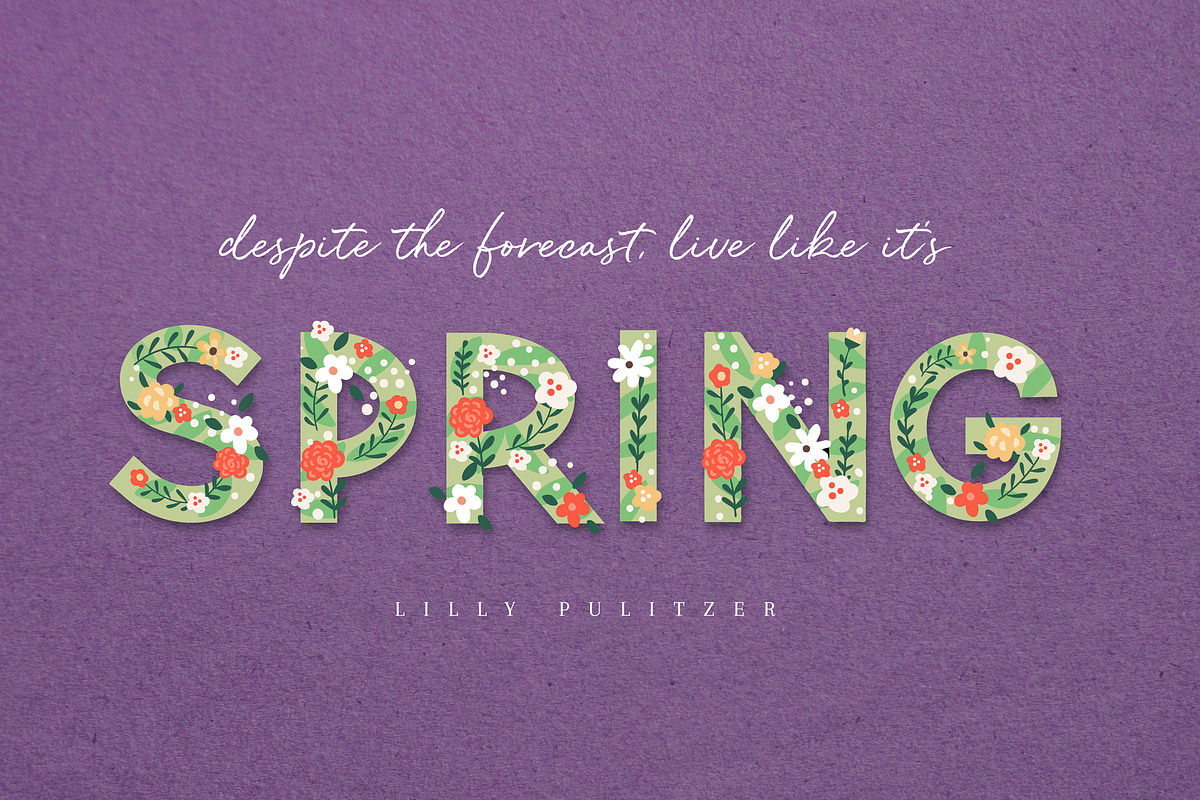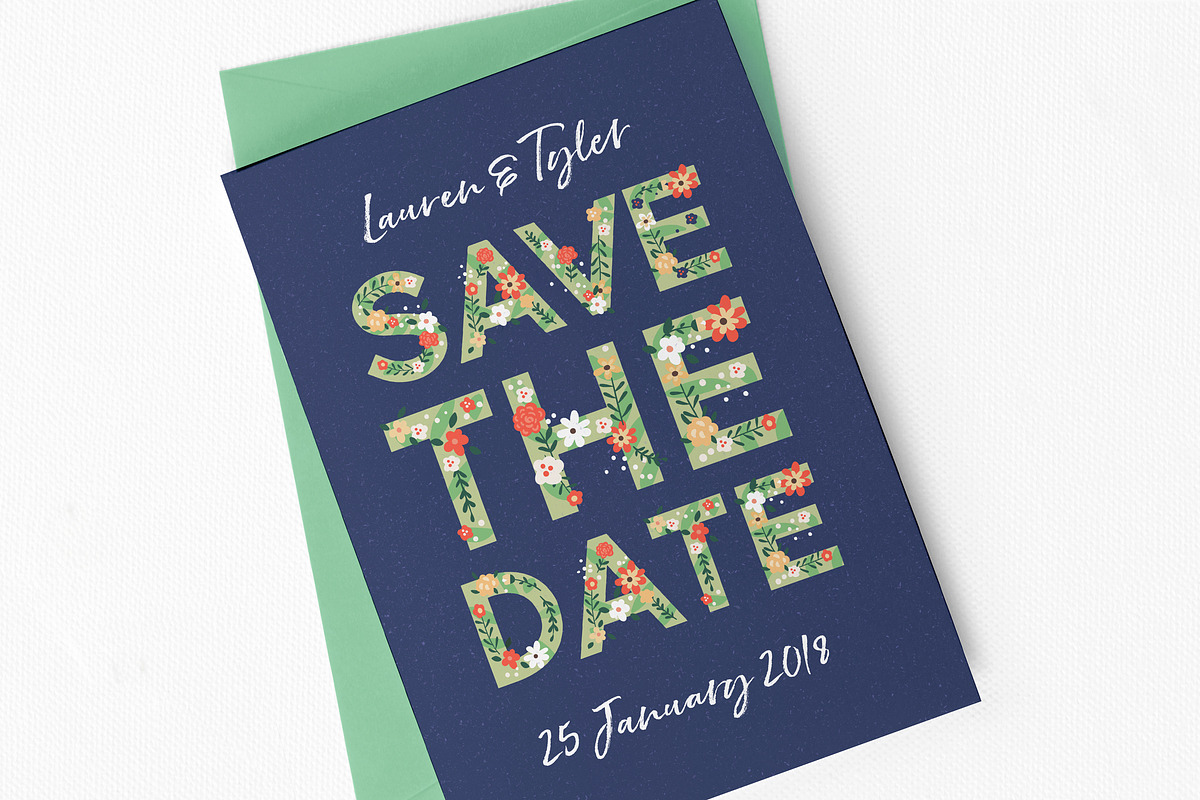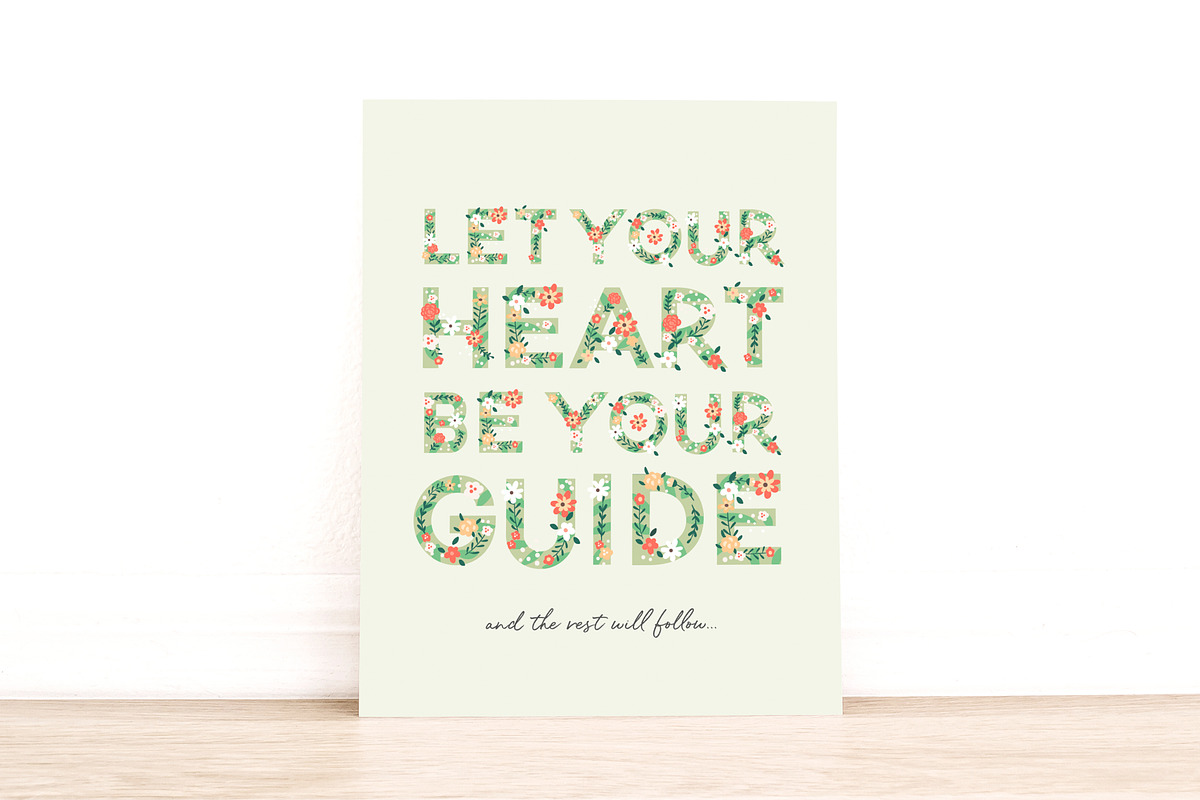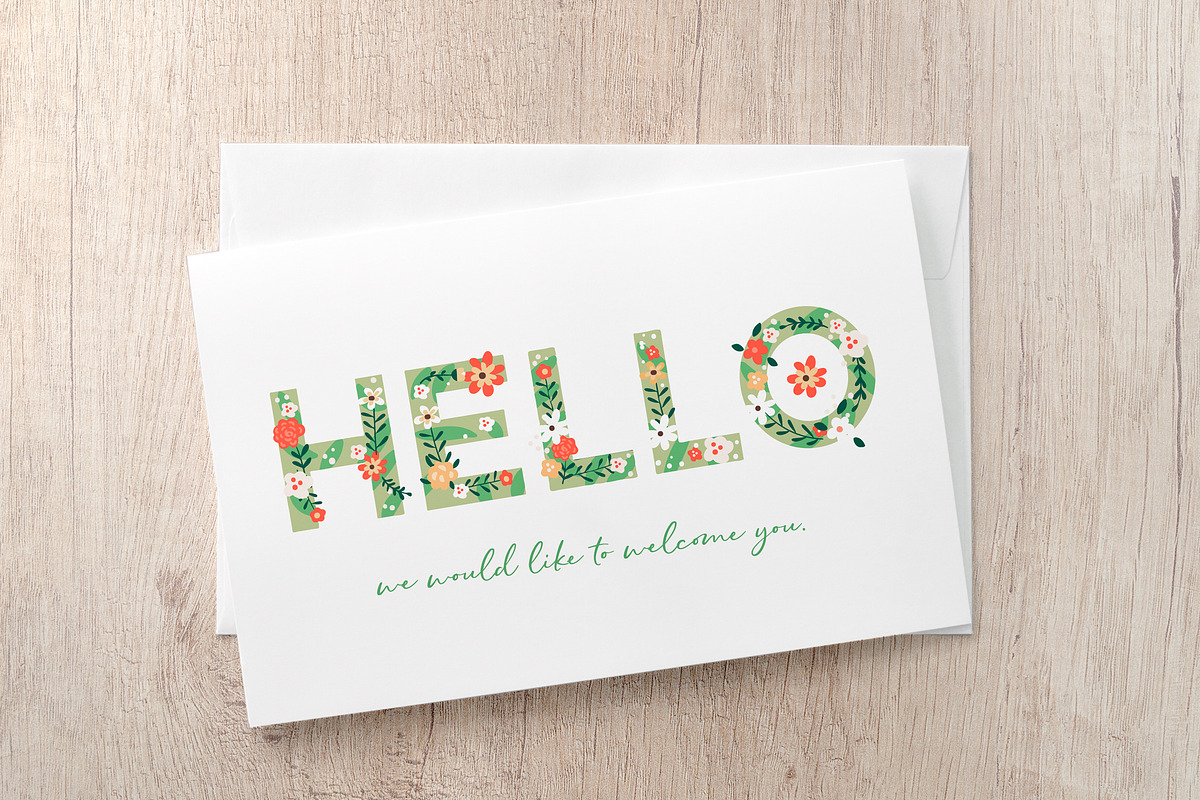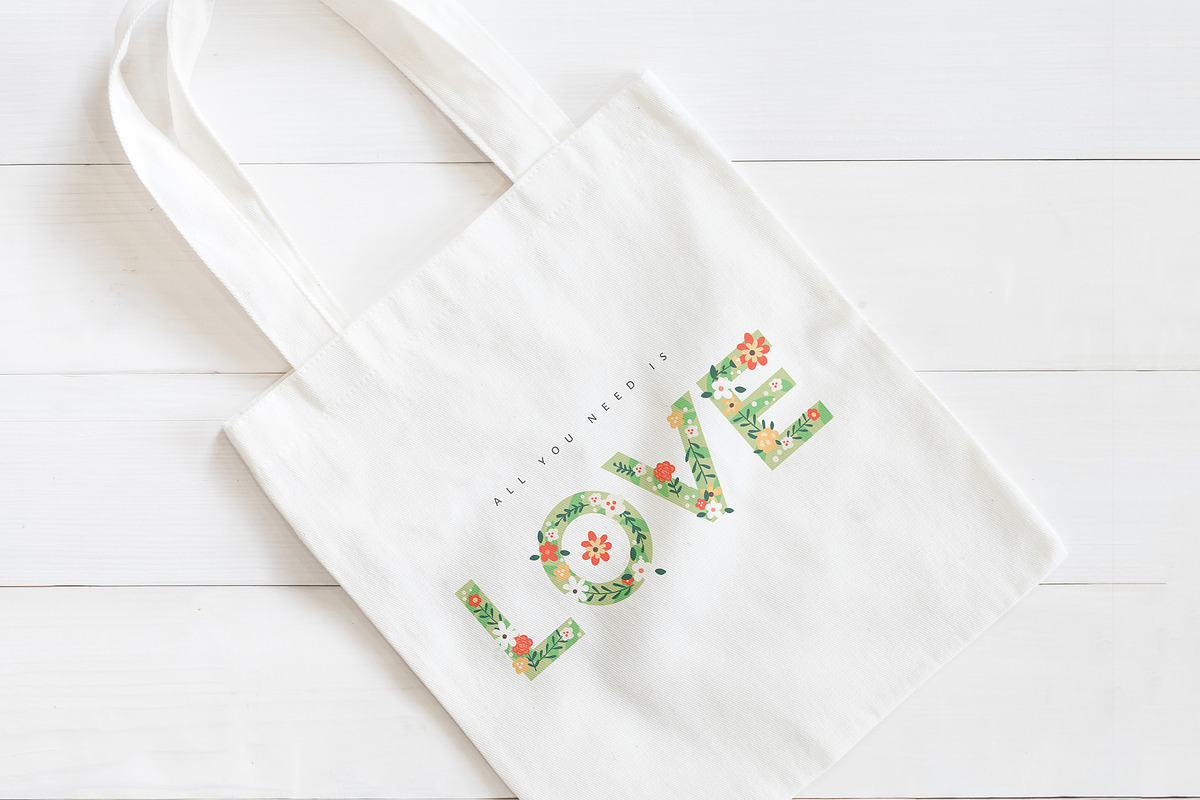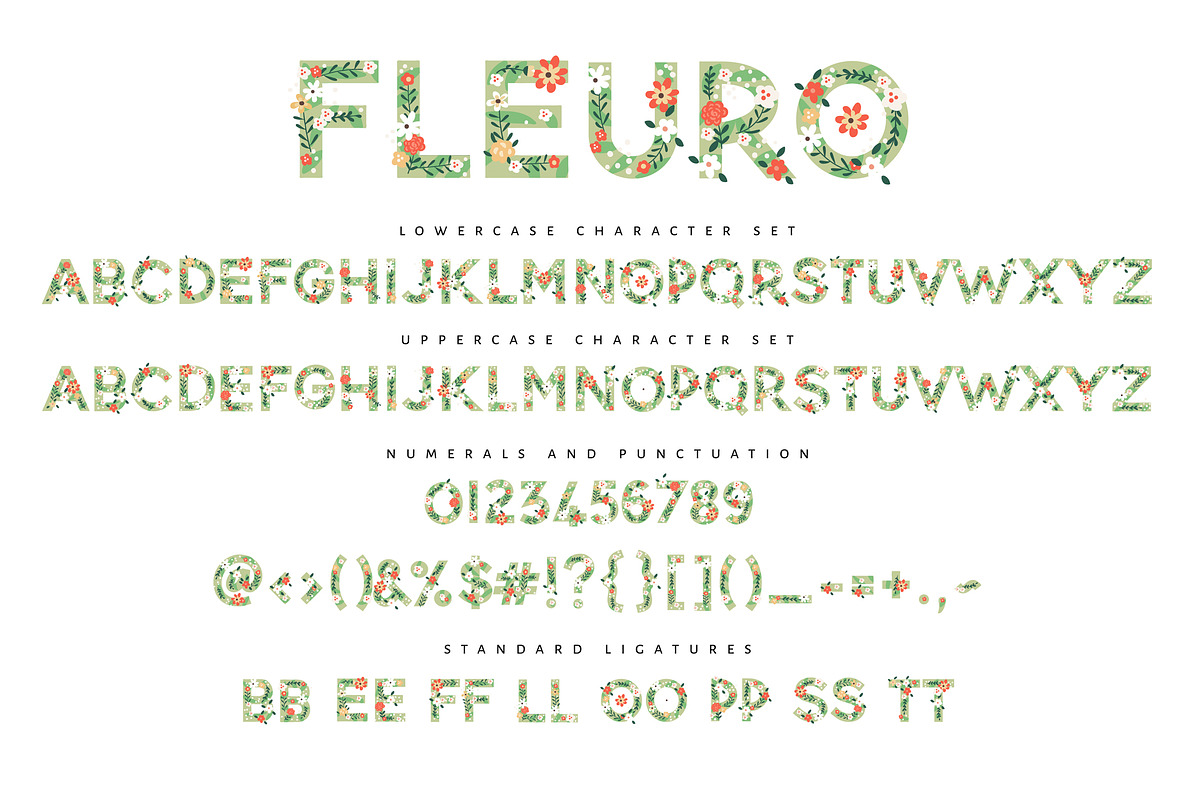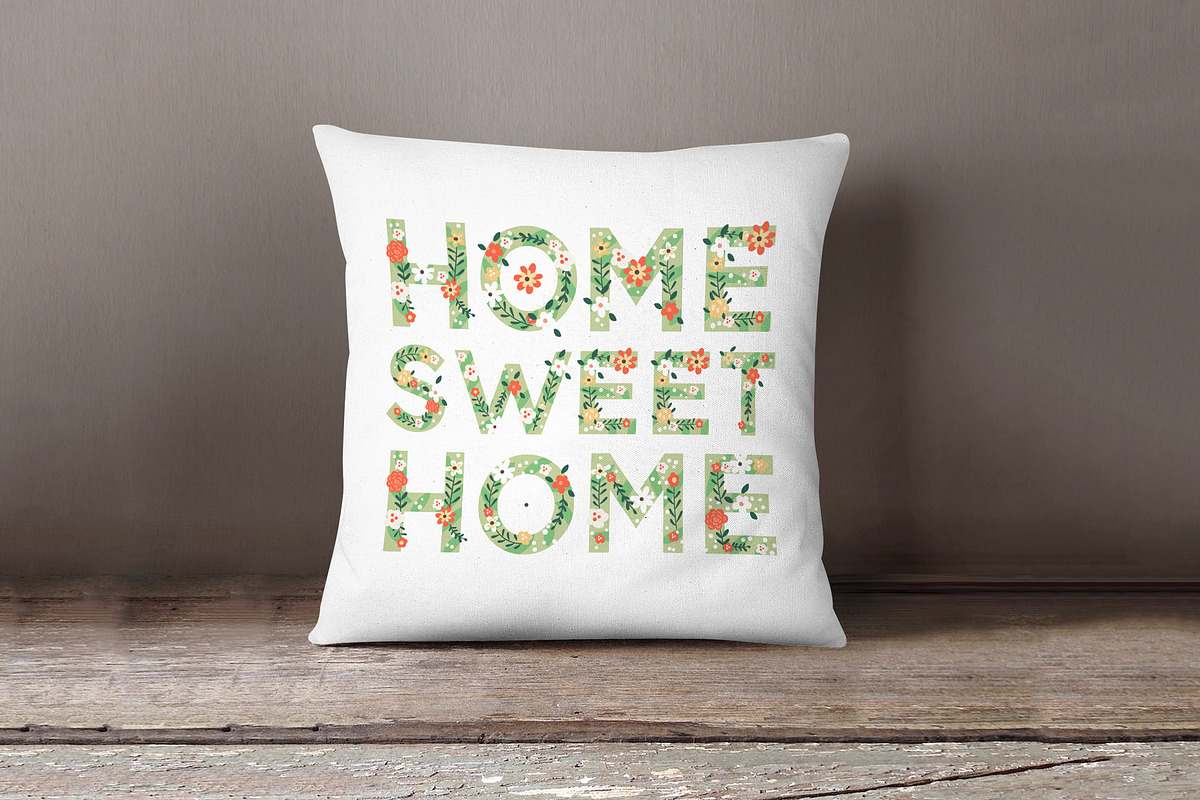
NEW! FLEURO Colour Font :)
Hi Folks! After just having given the freakishly awesome 🌈 FONTSELF COLOUR FONT Maker for ILLUSTRATOR 🌈 a good go, I was SUPER impressed with how incredibly simple it was to make Colour Fonts! This Illustrator product is SO amazing, I just had to tell you all about it - you can read ALL about how I made it, on the latest Creative Market blog post : 😍
Naturally, I had to get stuck into the FONTSELF extension for PHOTOSHOP too! So far, it's honestly JUST as gobsmacking, so stay tuned for something to come out of that folks :D